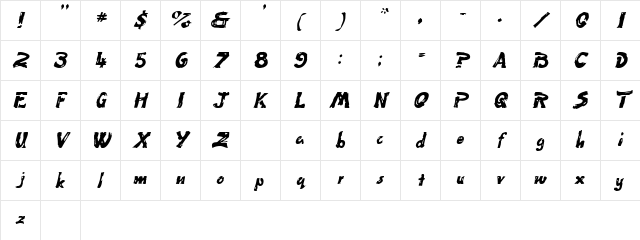
KidzOnlySSK Italic Free Font
KidzOnlySSK Italic
Style: Italic
Design Context for KidzOnlySSK
KidzOnlySSK is a composed and adaptable typeface that performs quietly and consistently across a wide range of design contexts. The slanted form adds forward momentum and visual energy.
Pro Tip: Use KidzOnlySSK for emphasis, pull quotes, and subheadings where its slanted energy can add rhythm to the layout.